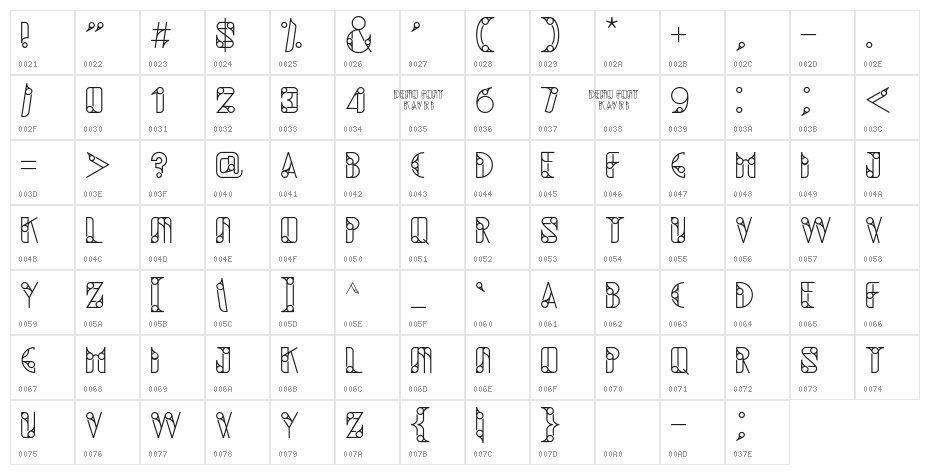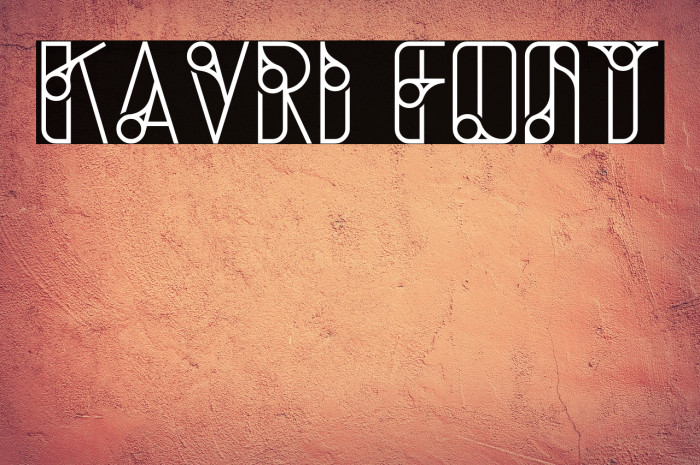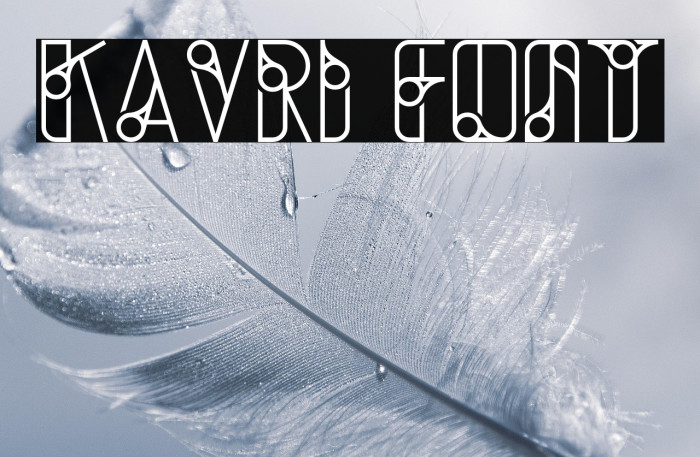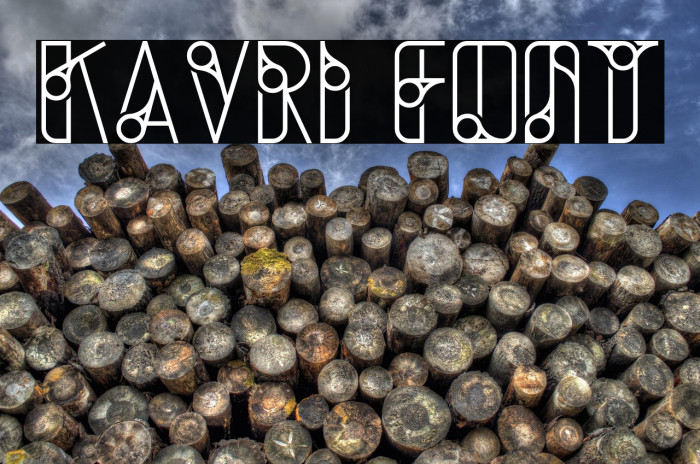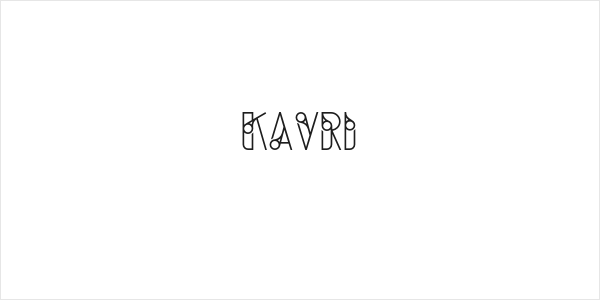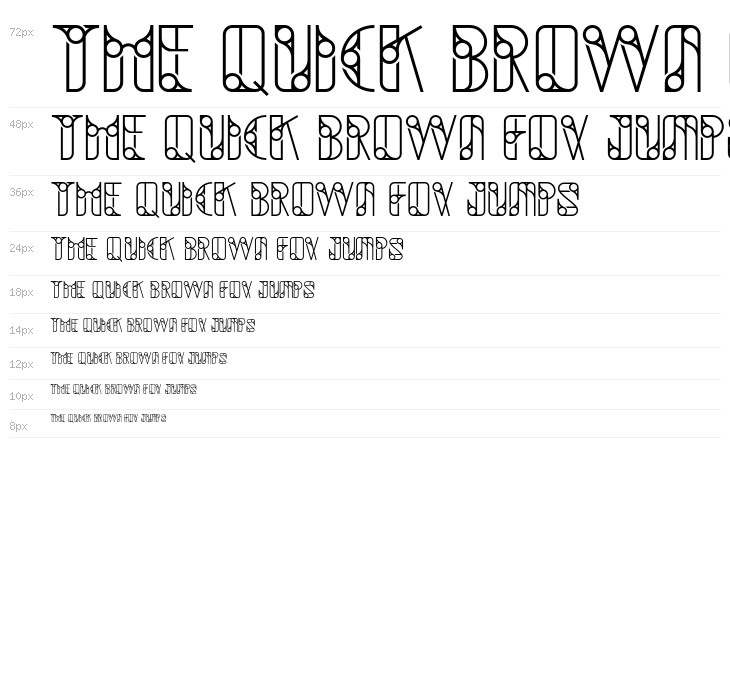
Kavri Font
Kavri Description
This font features a unique and artistic design with geometric elements and circular accents integrated into each character. The letters are constructed with a combination of straight lines and curves, creating a visually intriguing and modern appearance. The uppercase and lowercase letters maintain a consistent style, with the circular motifs adding a decorative touch. Numbers and special characters follow the same design principles, ensuring a cohesive look across all elements. The font's distinct style makes it suitable for creative and bold design projects.
| Use Case | Logos, Headlines, Posters |
| Proposed Projects | Ideal for branding, posters, album covers, and any project requiring a bold and artistic touch. |